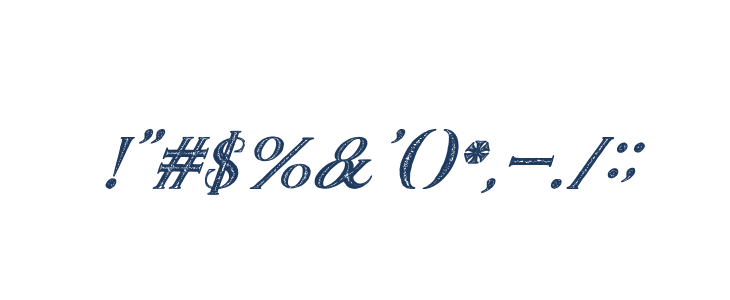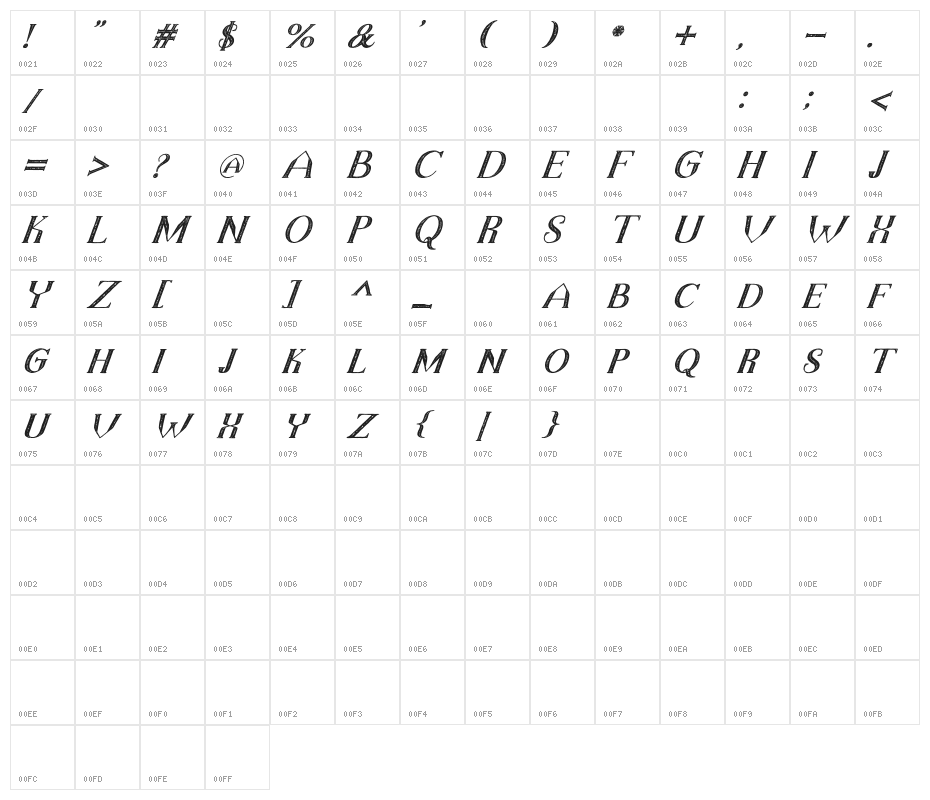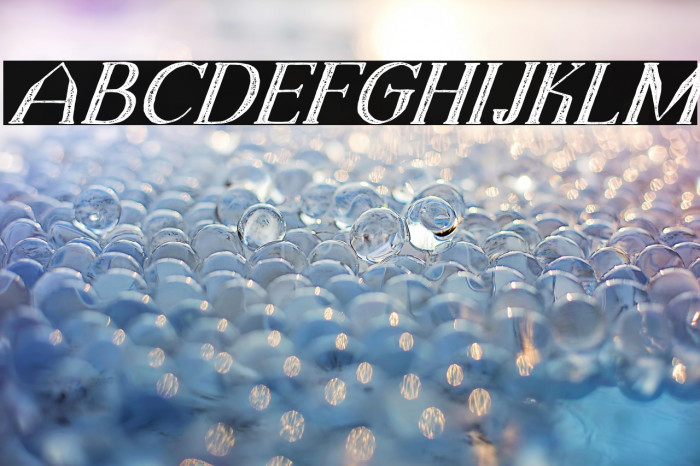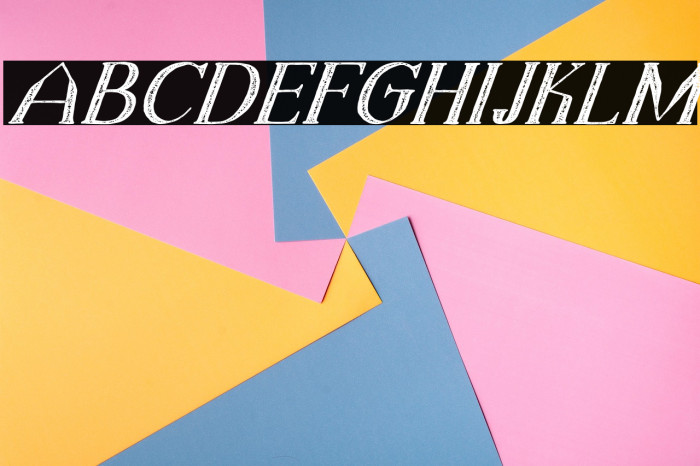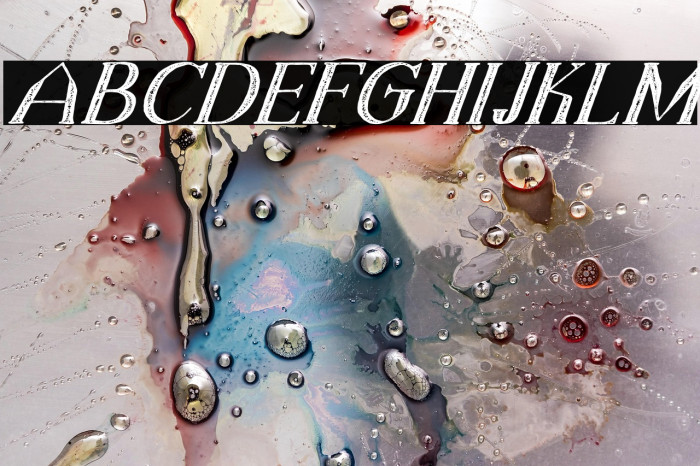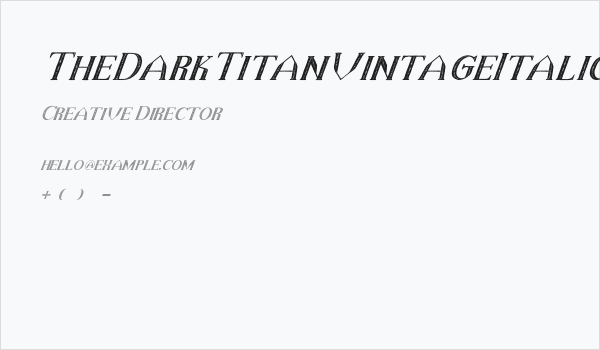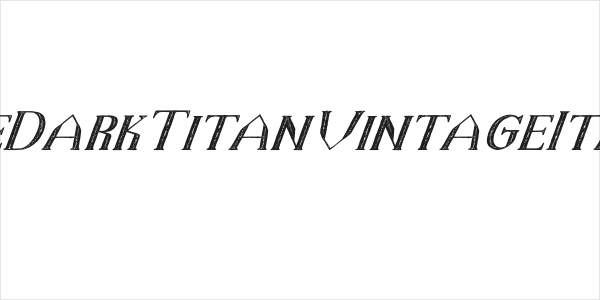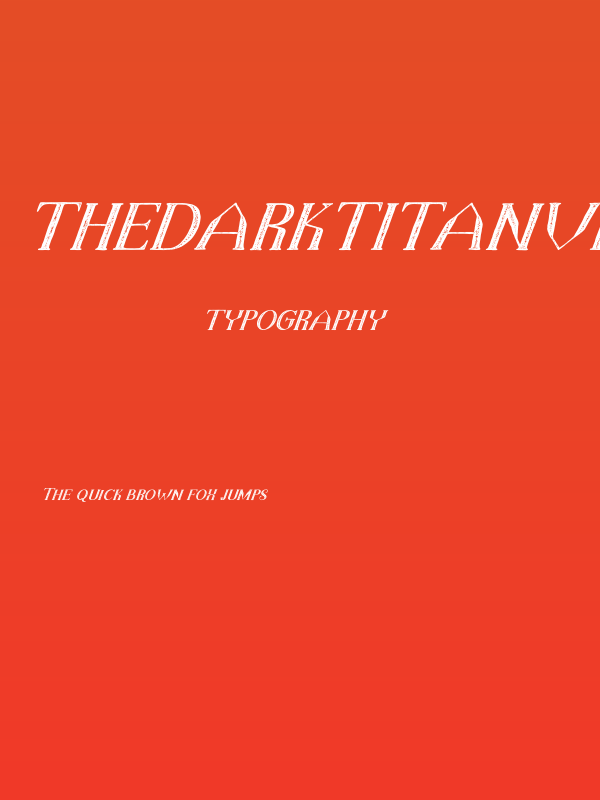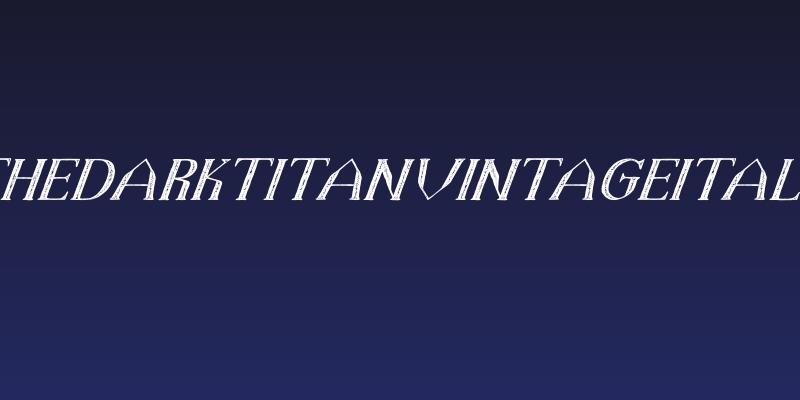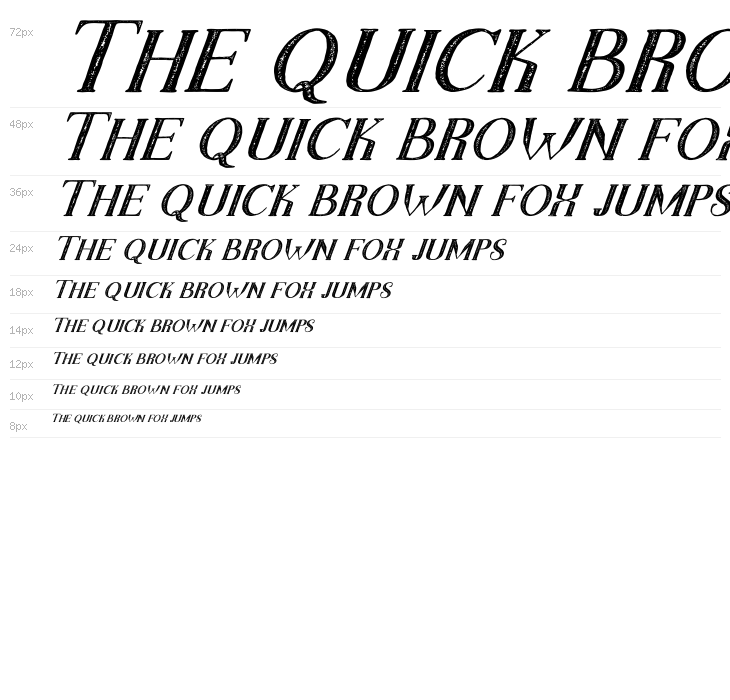
TheDarkTitanVintageItalic Font
TheDarkTitanVintageItalic Description
This font features a vintage italic style with a distinct flair. The uppercase letters are bold and slanted, giving a sense of movement and elegance. The lowercase letters maintain the same italicized angle, creating a cohesive look throughout the typeface. The characters have a textured appearance, reminiscent of old printing techniques, adding to its vintage charm. The numbers and special characters follow the same stylistic cues, ensuring consistency across all glyphs. This font is ideal for projects that require a touch of nostalgia and sophistication.
| Proposed Projects | Ideal for vintage-themed posters, branding, and packaging designs that require a classic and elegant touch. |